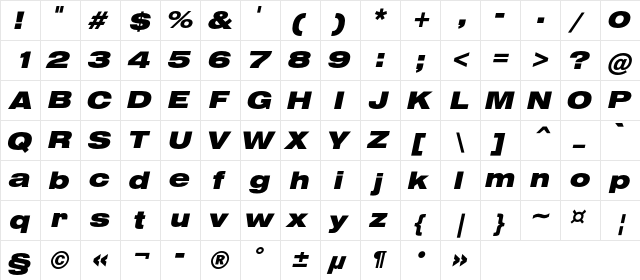
HeliosExtBlack Italic
Design Context for HeliosExtBlack Typeface
HeliosExtBlack takes a measured approach to typography — its balanced proportions and neutral character make it a reliable workhorse for both digital and print work. Its italic angle brings a sense of urgency and motion to the letterforms.
Pro Tip: Try HeliosExtBlack for annotation and caption copy alongside an upright companion — the contrast in angle creates a dynamic but ordered typographic system.